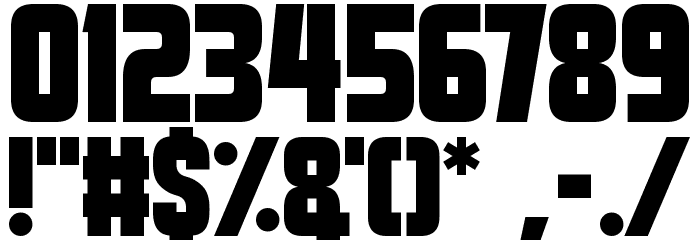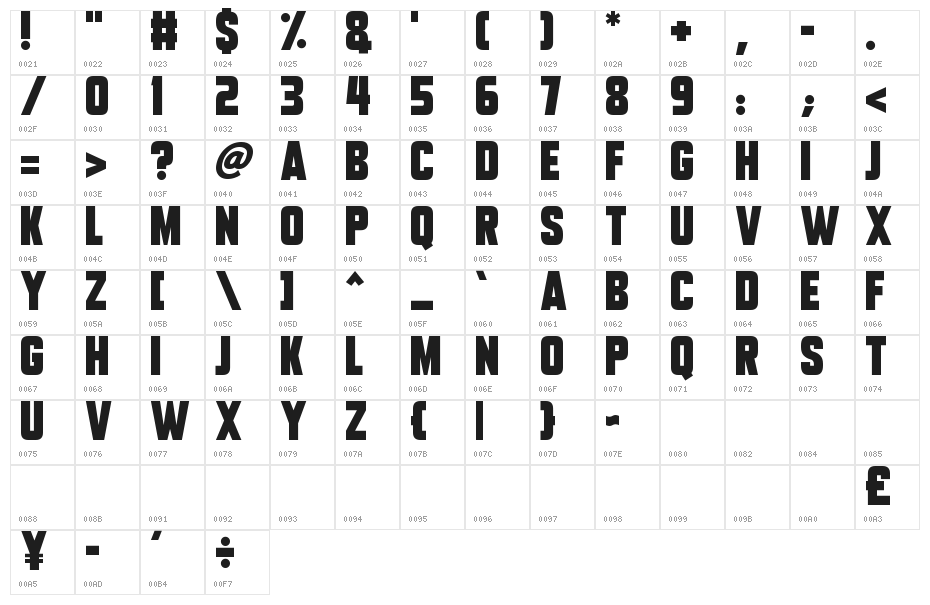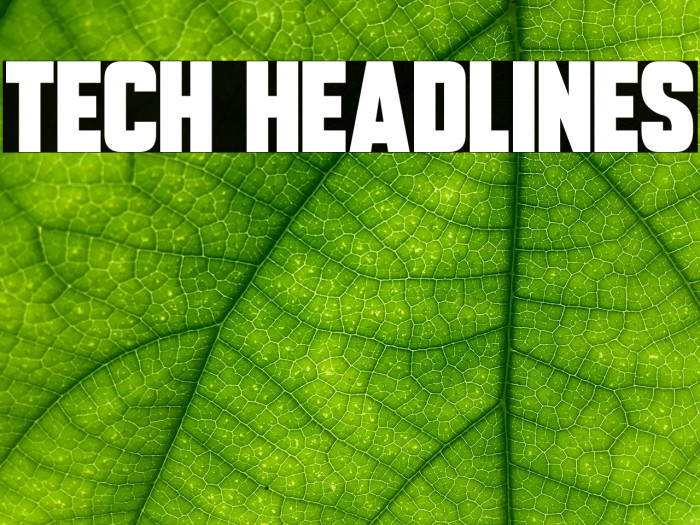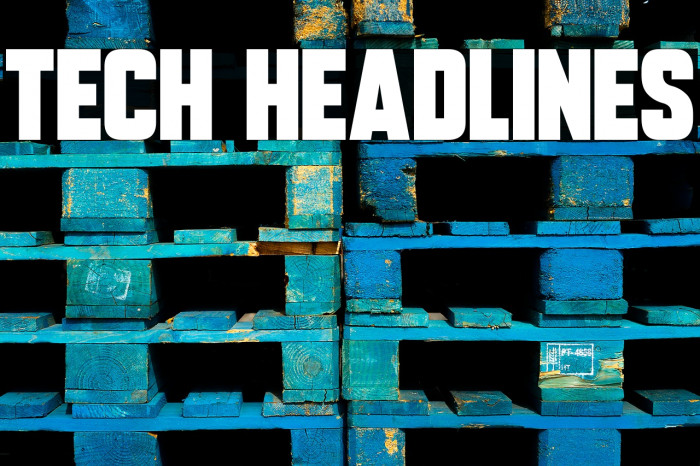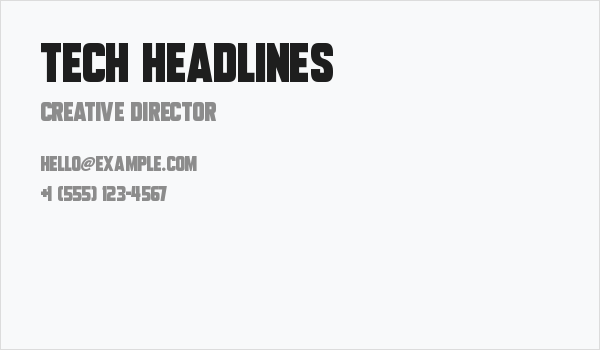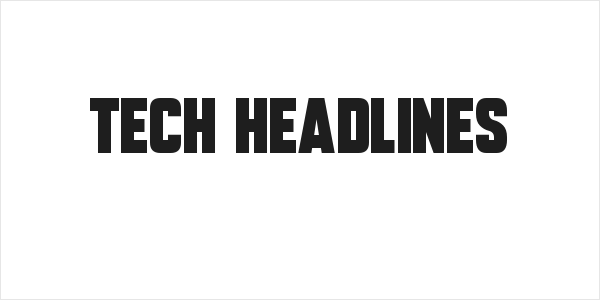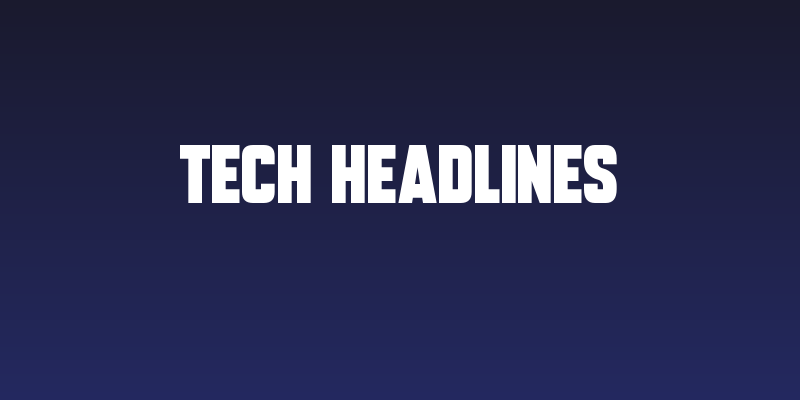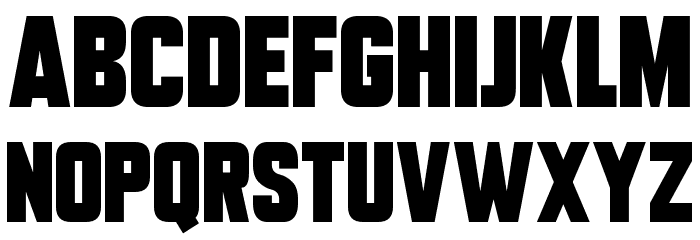
Tech Headlines Font
Tech Headlines Description
This font features a bold and impactful design, characterized by thick, uniform strokes that create a strong visual presence. The uppercase letters are blocky and geometric, with a slightly condensed appearance that enhances their boldness. The numbers and special characters maintain the same robust style, ensuring consistency across all elements. The font's design is modern and assertive, making it ideal for applications that require attention-grabbing headlines or statements. Its high contrast and solid structure make it easily readable from a distance, while the tight character spacing adds to its compact and powerful look.
| Proposed Projects | Ideal for headlines, posters, banners, and any project requiring a bold, impactful typeface. |